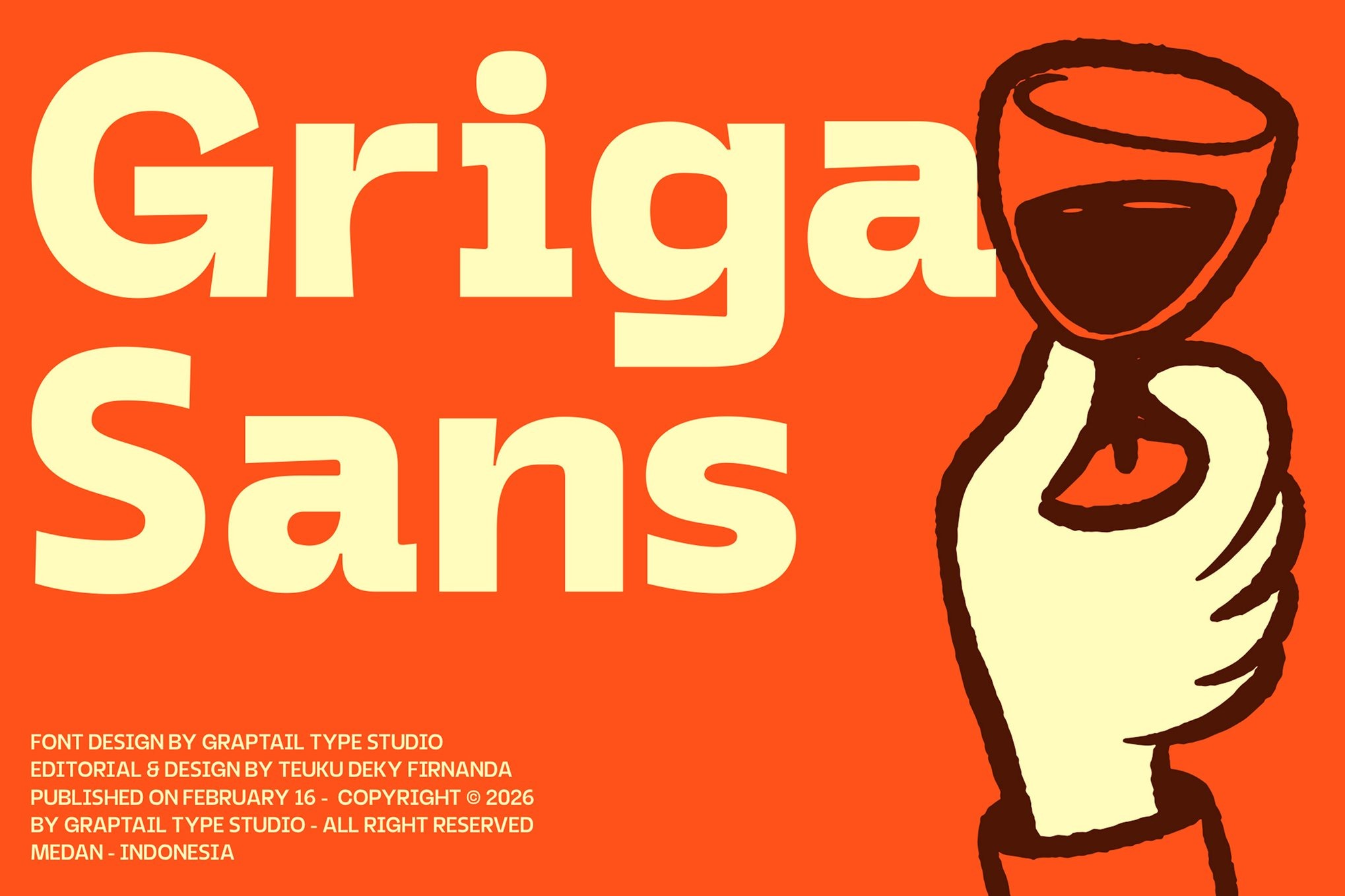
Griga Sans Font Family
Griga Sans Font Family is a versatile font designed to adapt beautifully across different design styles, offering dependable readability and balance. Griga Sans is a contemporary display sans serif designed with clarity, strength, and visual impact in mind. Its structured letterforms and balanced proportions make it particularly effective in large-scale applications where presence and readability are essential.
The family consists of 9 weights ranging from Thin to Black, accompanied by a Regular and Italic style, offering designers a versatile typographic system for building clear hierarchy and expressive contrast.
Griga Sans combines geometric construction with subtle detailing, resulting in a typeface that feels modern, stable, and adaptable across various visual contexts.